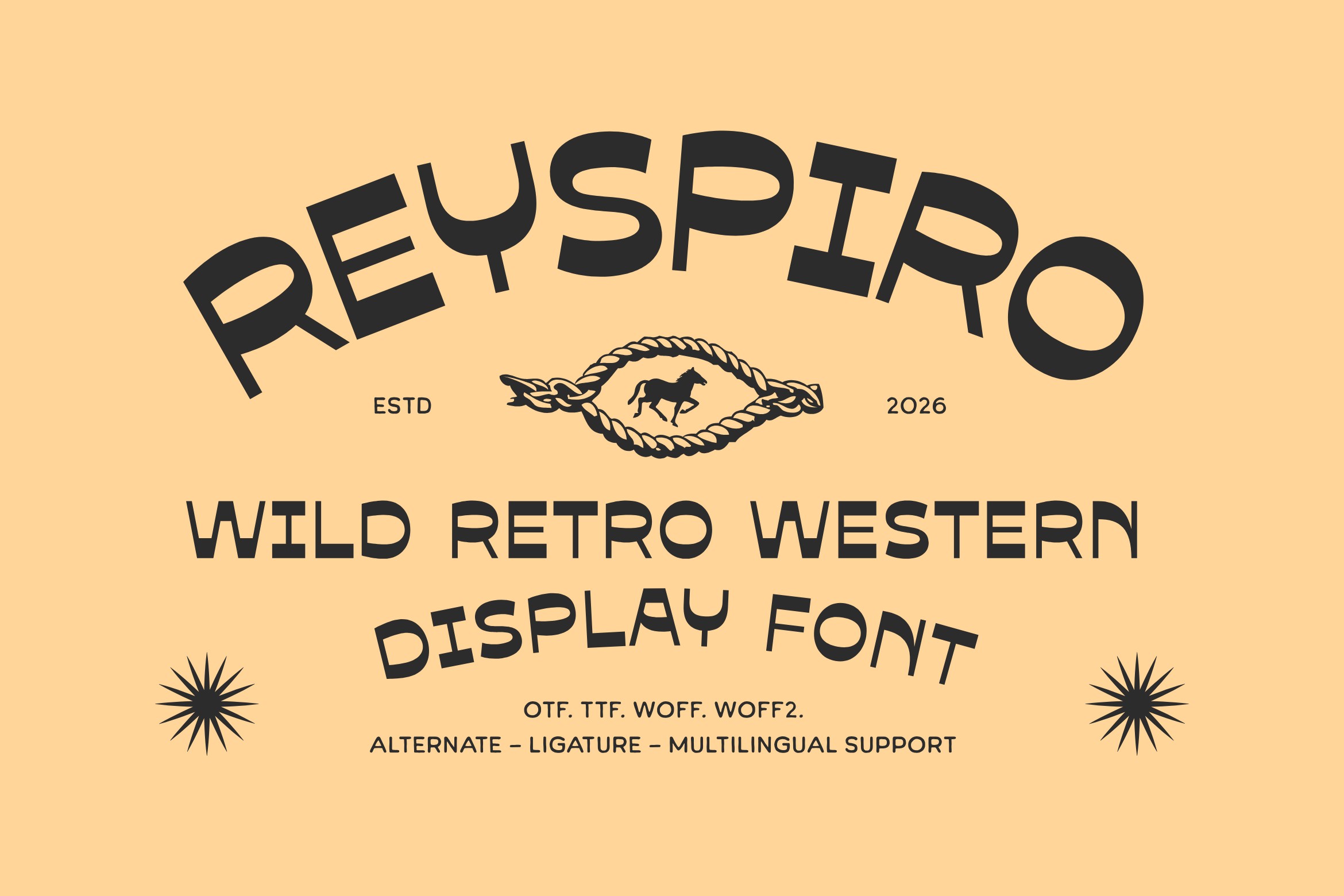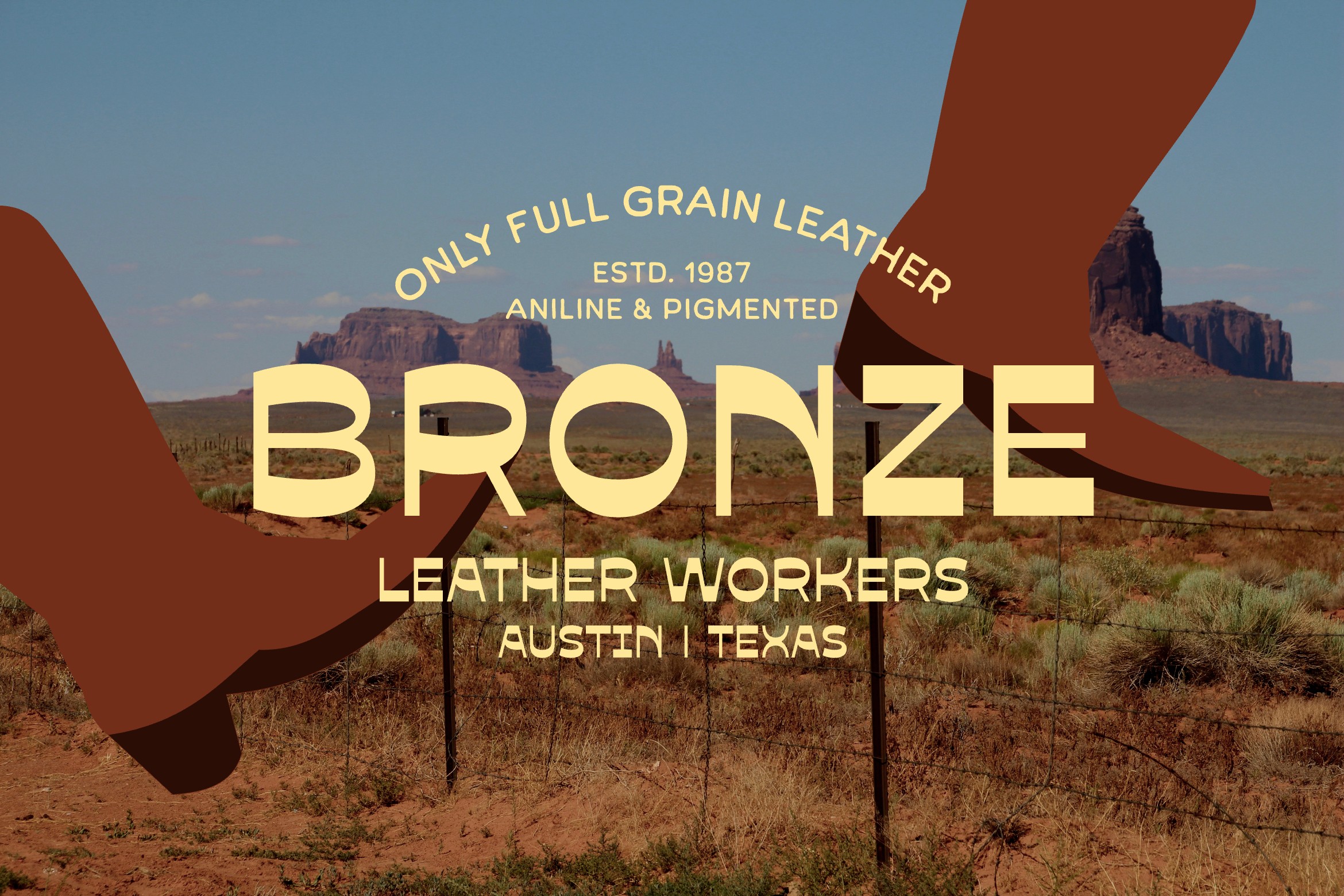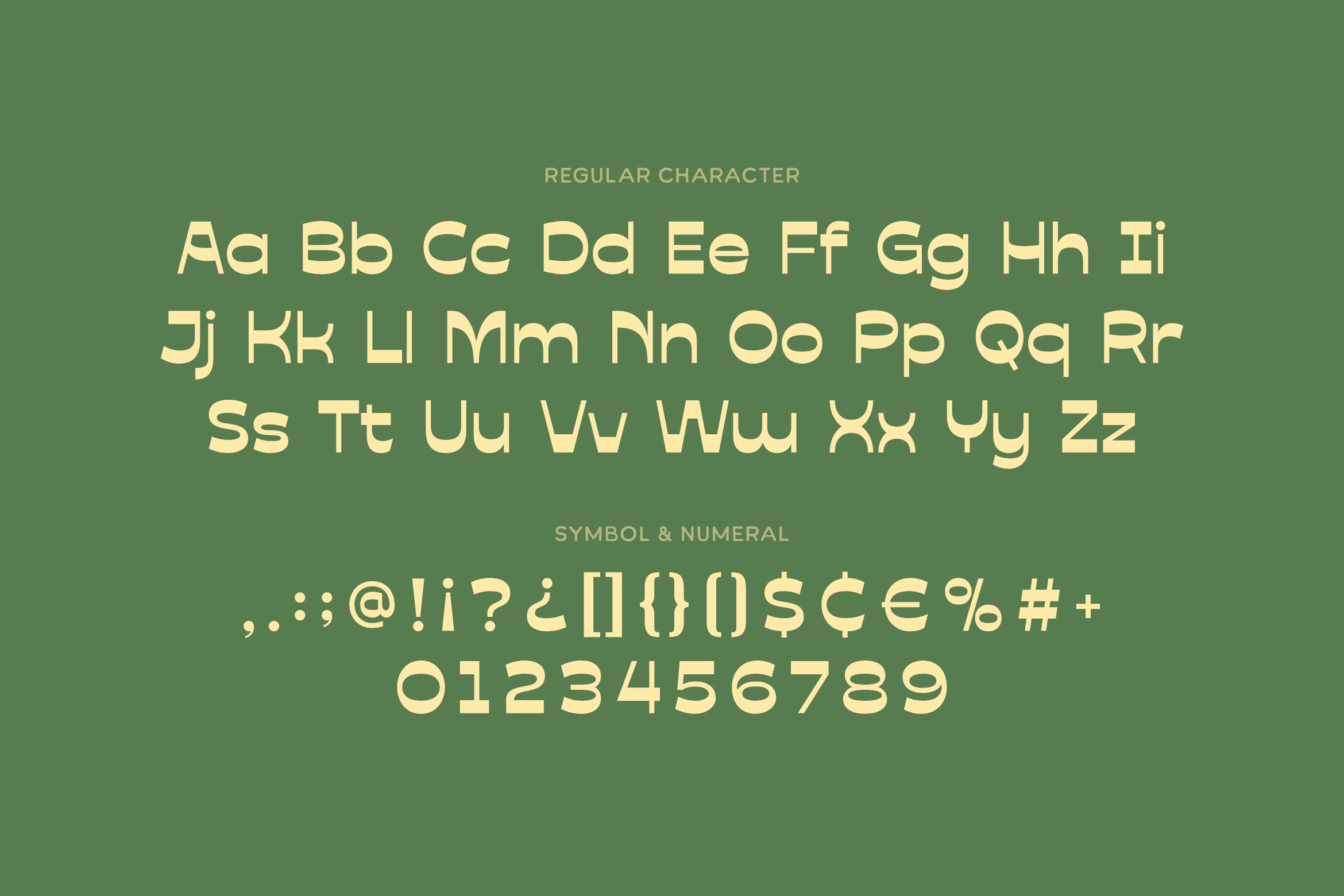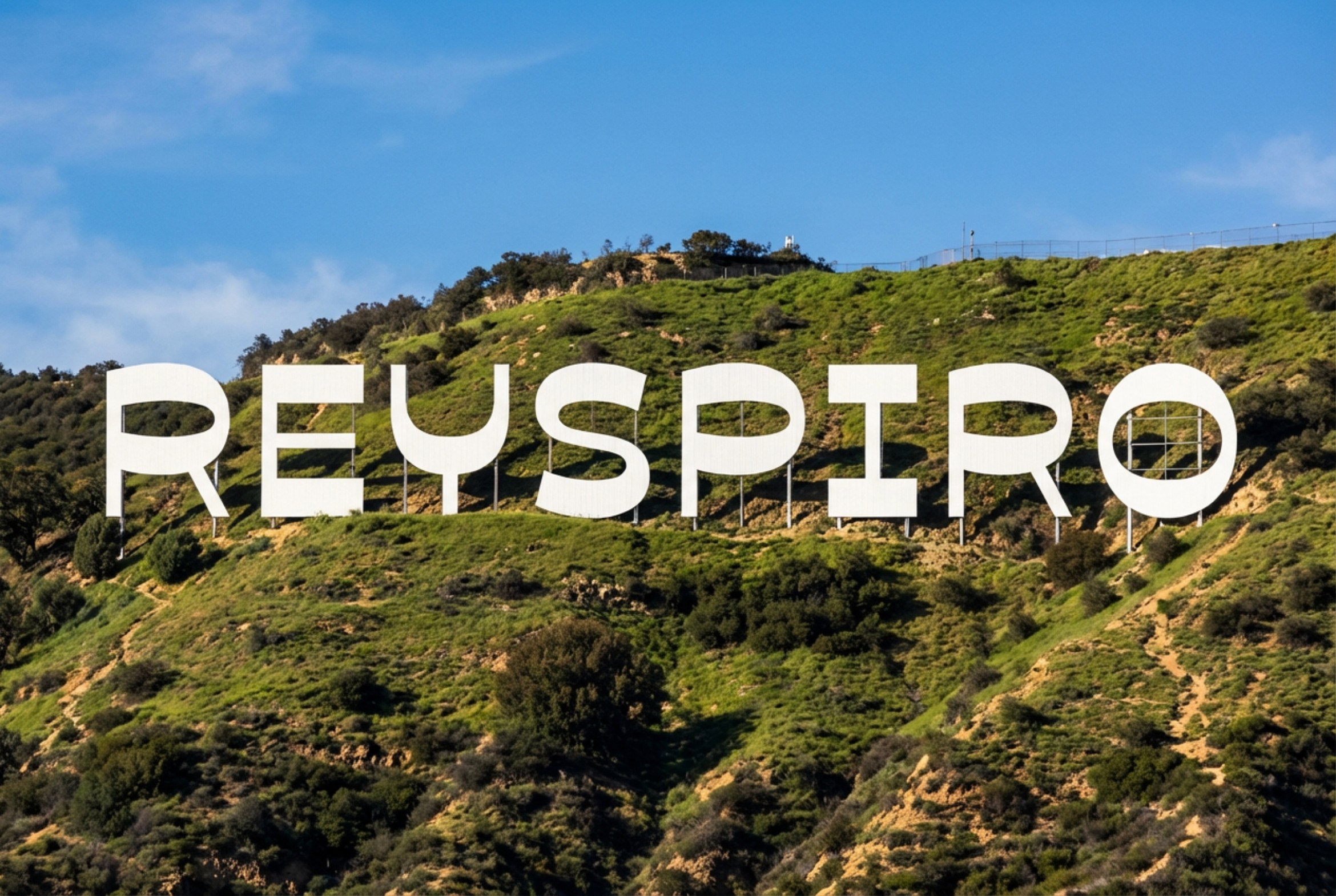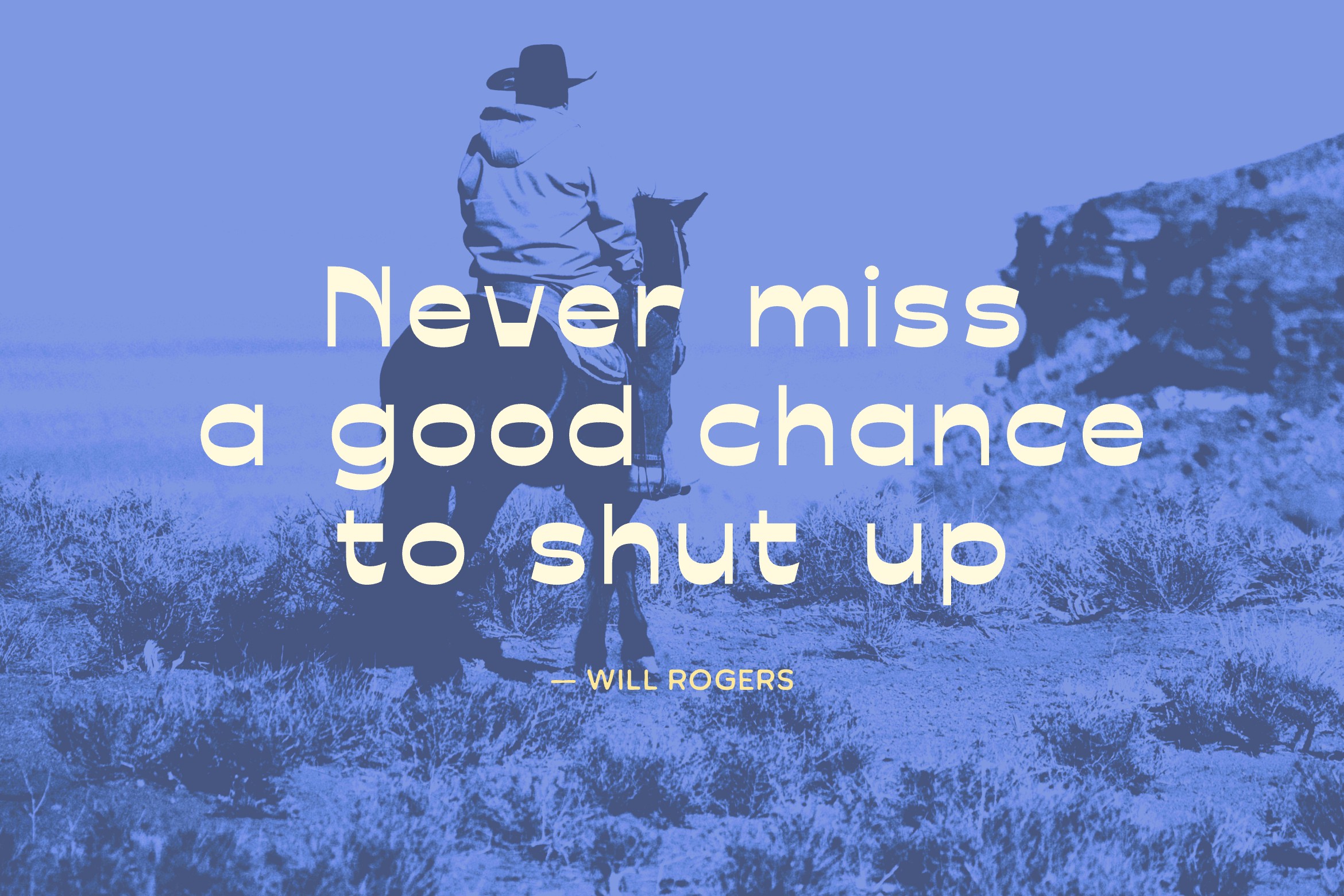
Reyspiro
Western Bold is a display font inspired by vintage cowboy typography, featuring ligatures, alternates, symbols, numerals, and multilingual support. This bold retro western font is suitable for various design projects, offering a strong vintage character.